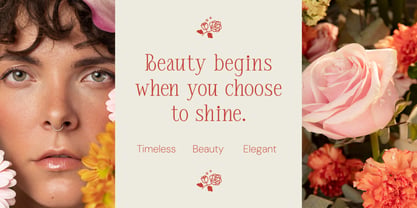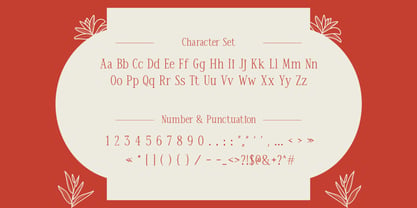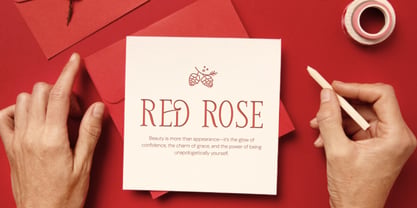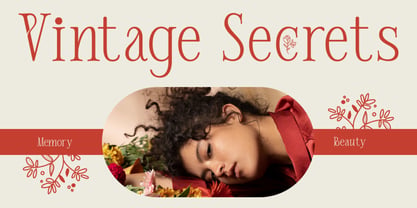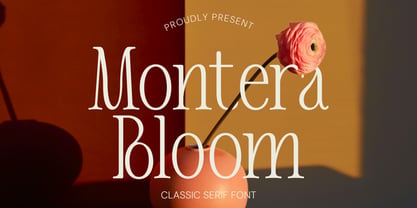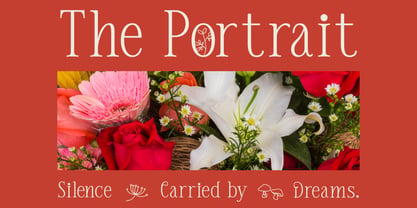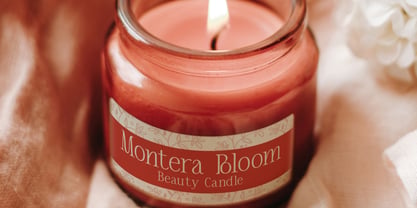
Montera Bloom
by Rasio Studio
The Montera Bloom Font Family was designed by Fajar Indra and published by Rasio Studio. Montera Bloom contains 1 styles. More about this family
Montera Bloom is a refined classic serif font that blends timeless beauty with modern sensitivity. Its tall proportions, elegant contrast, and soft curvature create a harmonious balance between sophistication and warmth. Perfect for editorial layouts, branding, invitations, and artistic packaging, Montera Bloom brings an aura of calm elegance to any design. Featuring uppercase and lowercase characters, numerals, and punctuation, this typeface is crafted for clarity and grace. Every stroke is shaped with attention to detail, making it ideal for both print and digital projects that aim for classic refinement and modern elegance.
Designers: Fajar Indra
Foundry: Rasio Studio